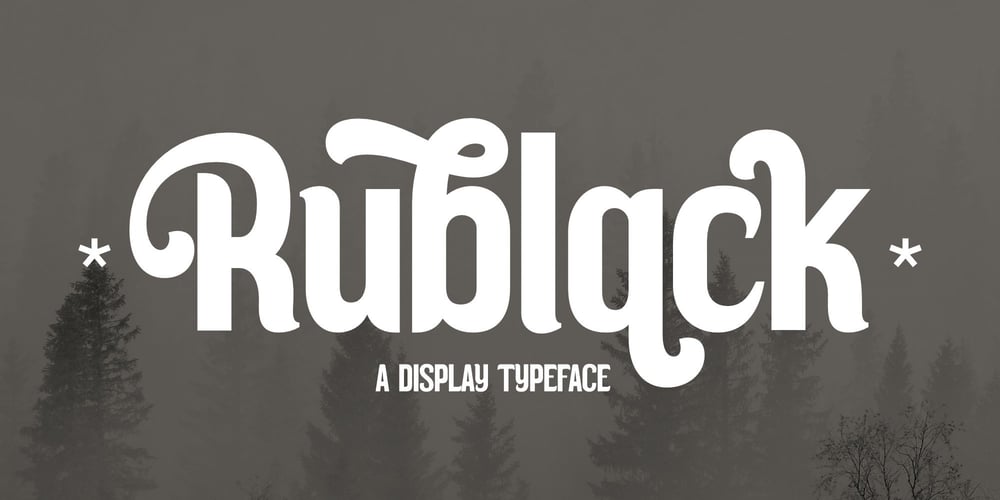
Rublack Font Family was designed by Heru Utama Putra and published by Letterena Studios. Rublack contains 2 styles and family package options. Rublack Typeface is a modern display font. This typeface is perfect for an elegant & luxury logo, book or movie title design, fashion brand, magazine, clothes, lettering, quotes, and so much more.